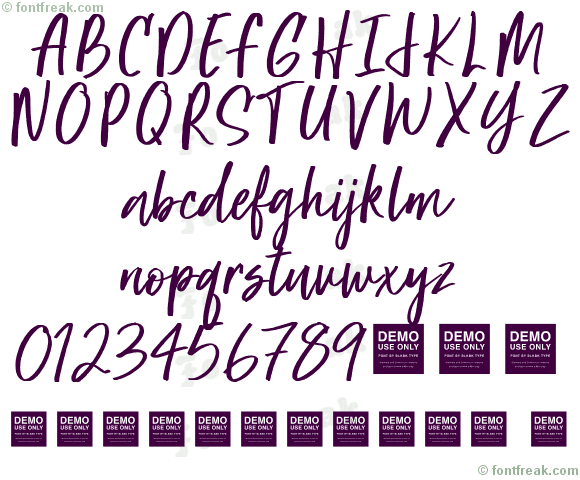
Super Natural
About Super Natural
The Super Natural font by BLKBK Fonts is a captivating handwritten typeface that blends a casual, organic feel with a touch of elegance. This font falls into the script category, characterized by its expressive strokes and fluid lines. The stroke weight is moderately varied, which adds a dynamic quality to the letters, while the contrast between thick and thin lines enhances its visual appeal. The spacing is thoughtfully designed, providing an airy feel that maintains readability even in longer texts. Decorative elements are minimal yet effective, allowing the font's natural charm to shine through.
Super Natural is particularly well-suited for a variety of creative projects. It excels in wedding invitations, where its elegant yet approachable style can set a romantic tone. Additionally, it is perfect for branding purposes, such as logos for artisanal shops or handmade goods, as it conveys authenticity and warmth. The font can also elevate restaurant menus, giving a personal touch that can enhance the dining experience. Content creators will find it ideal for social media graphics, where its unique flair can help capture attention and engage audiences.
The target audience for the Super Natural font includes graphic designers looking for versatile typefaces that can add character to their projects, small business owners aiming to establish a distinct brand identity, and content creators who seek to enhance their visual storytelling.
What sets the Super Natural font apart is its ability to merge casual elegance with a sense of authenticity. This font stands out with its unique style that captures the essence of natural handwriting, making it a delightful choice for anyone seeking to add a personal touch to their designs. Don’t miss the opportunity to explore the Super Natural font free download, and let your creativity flow.